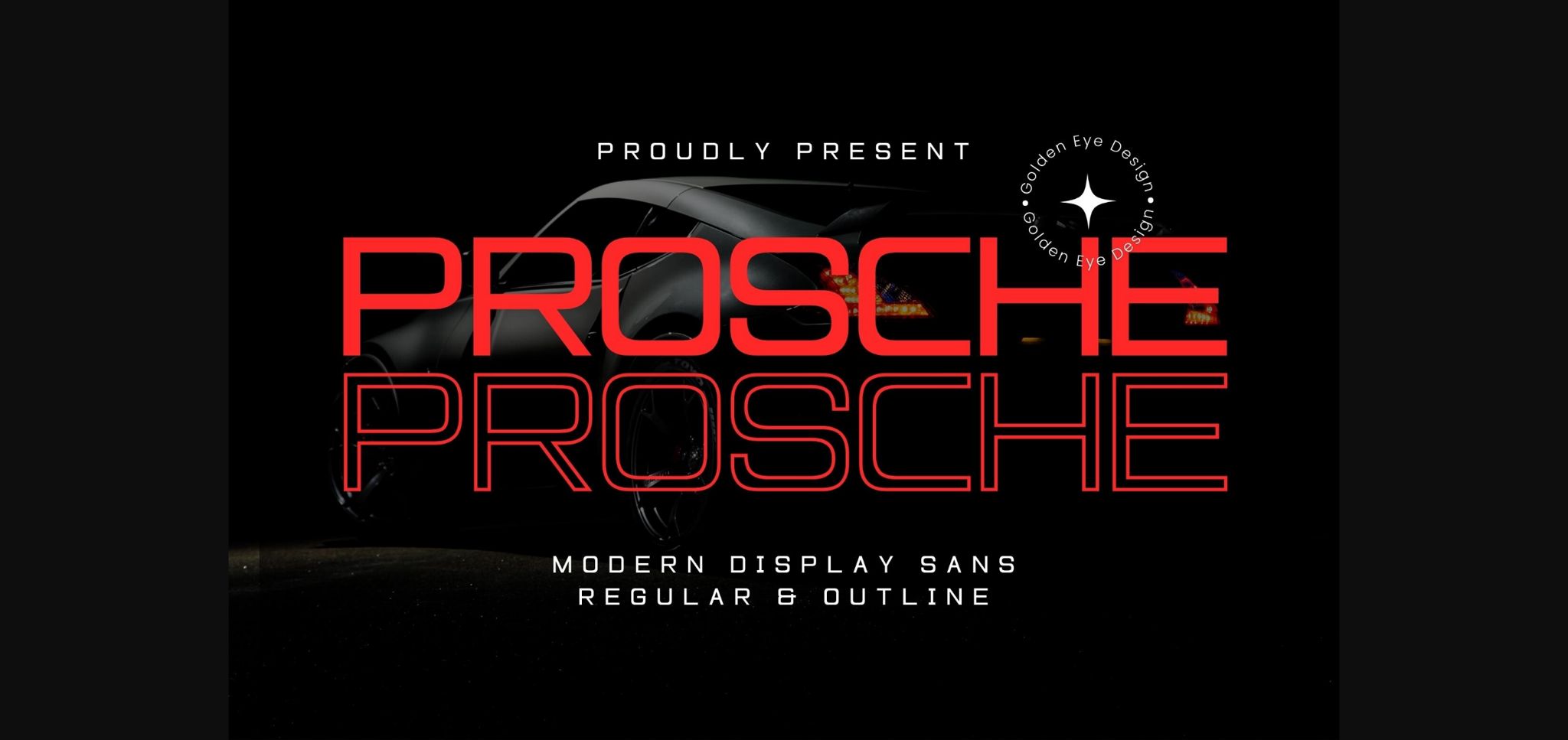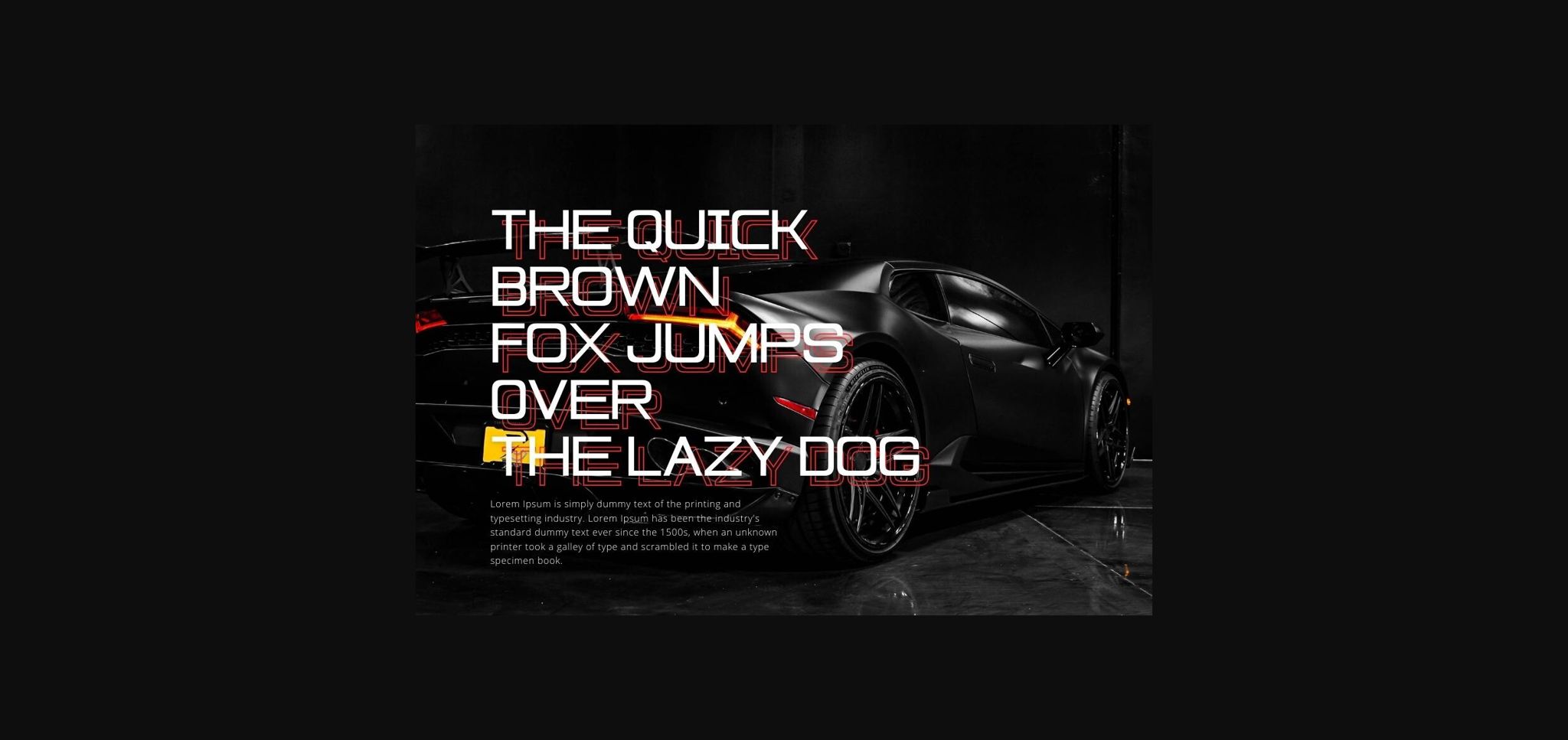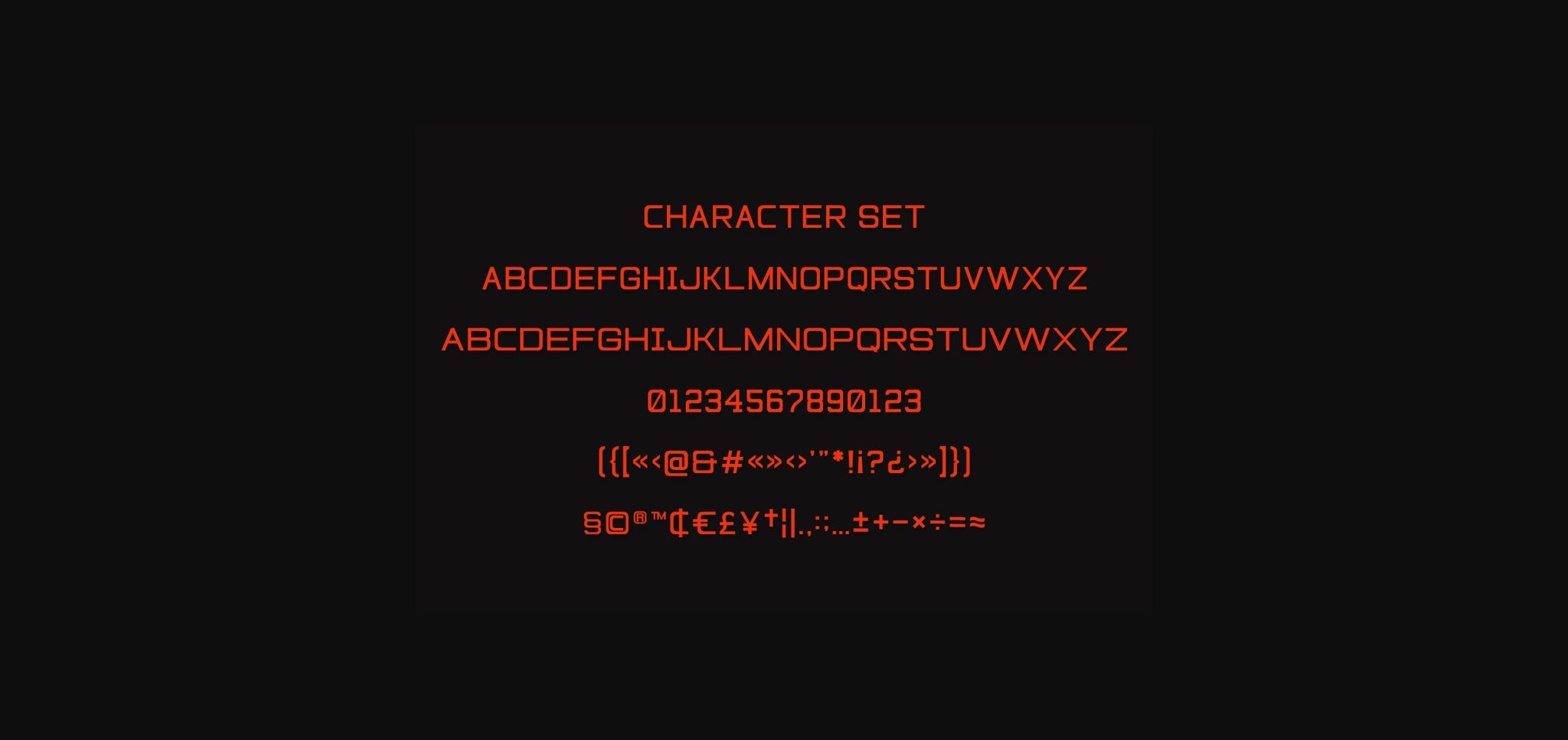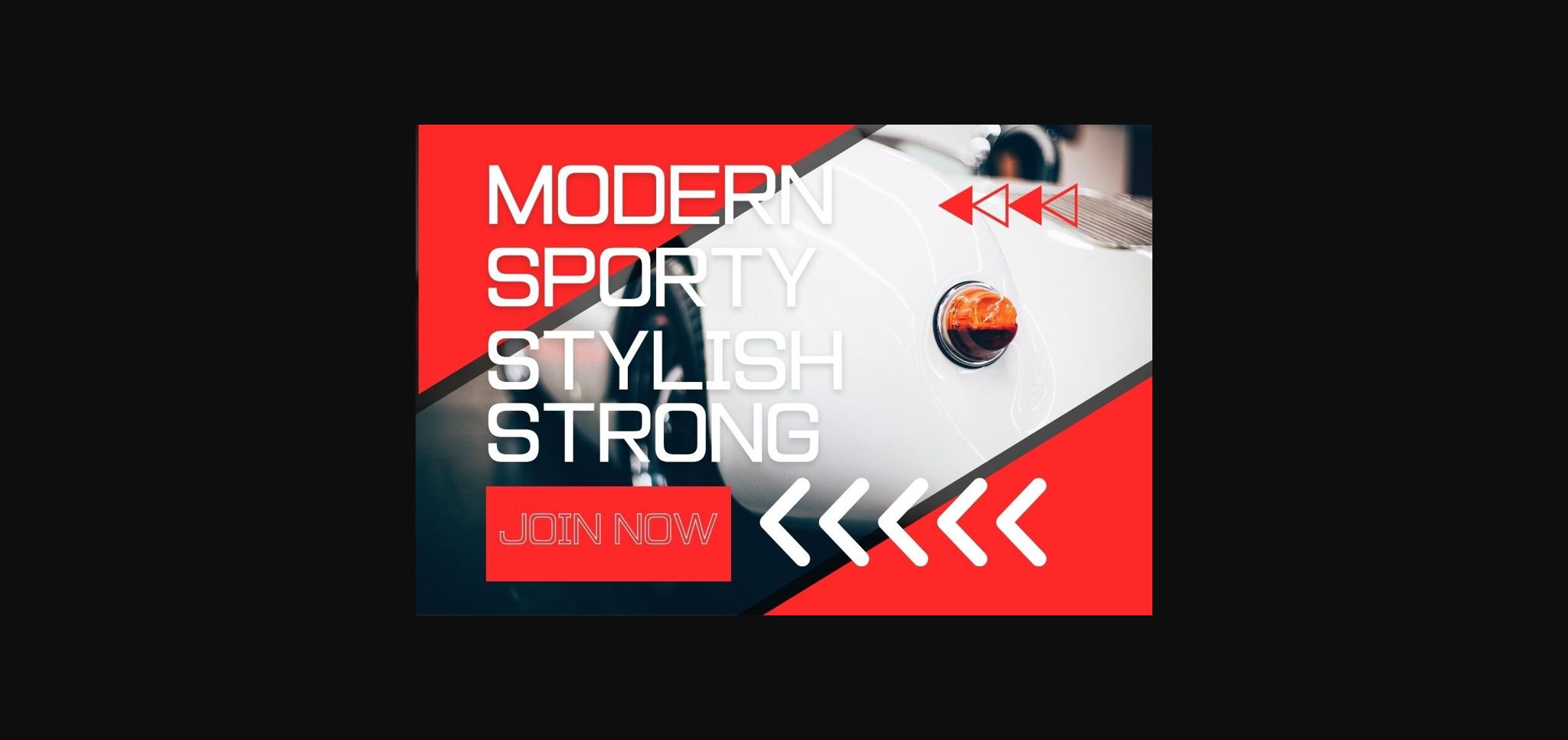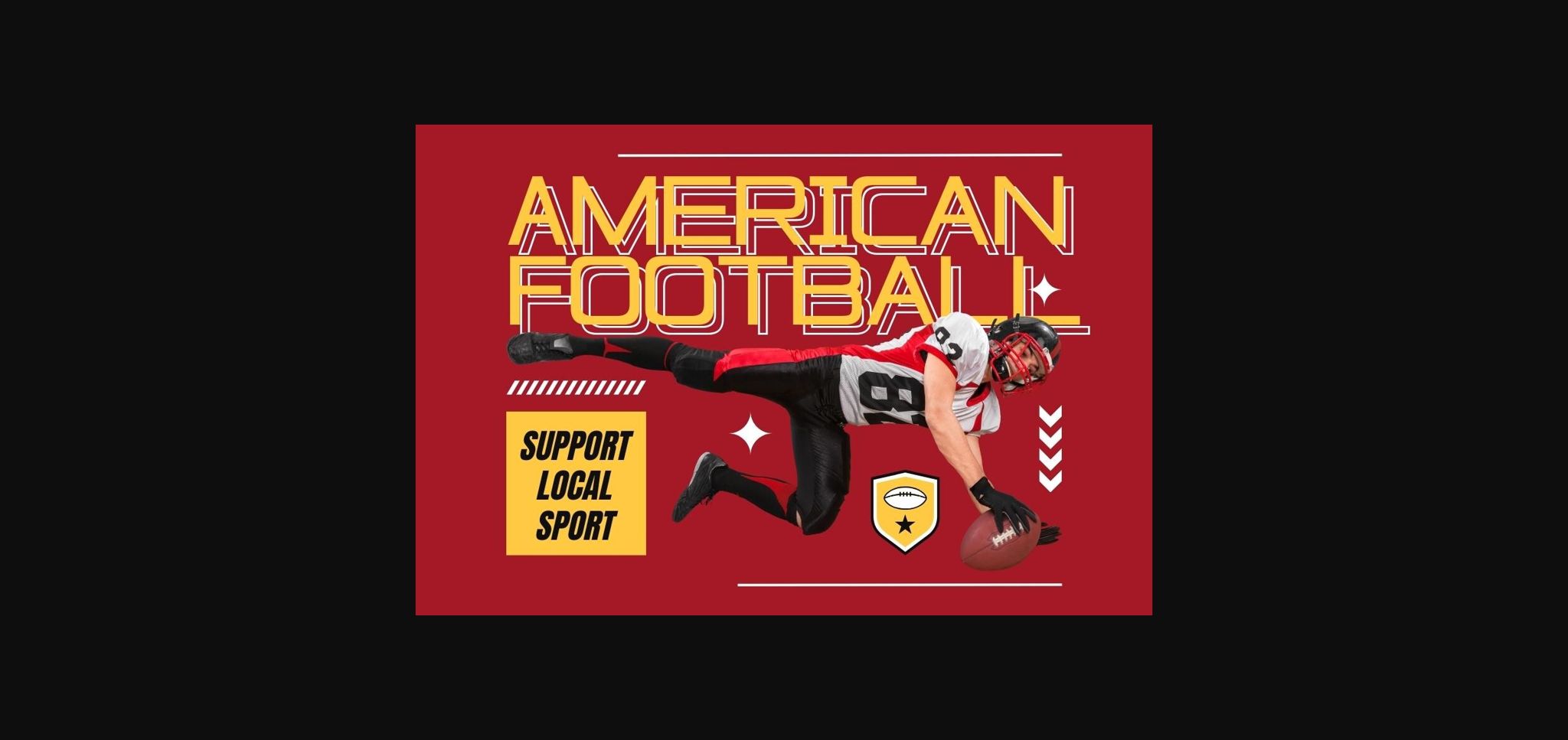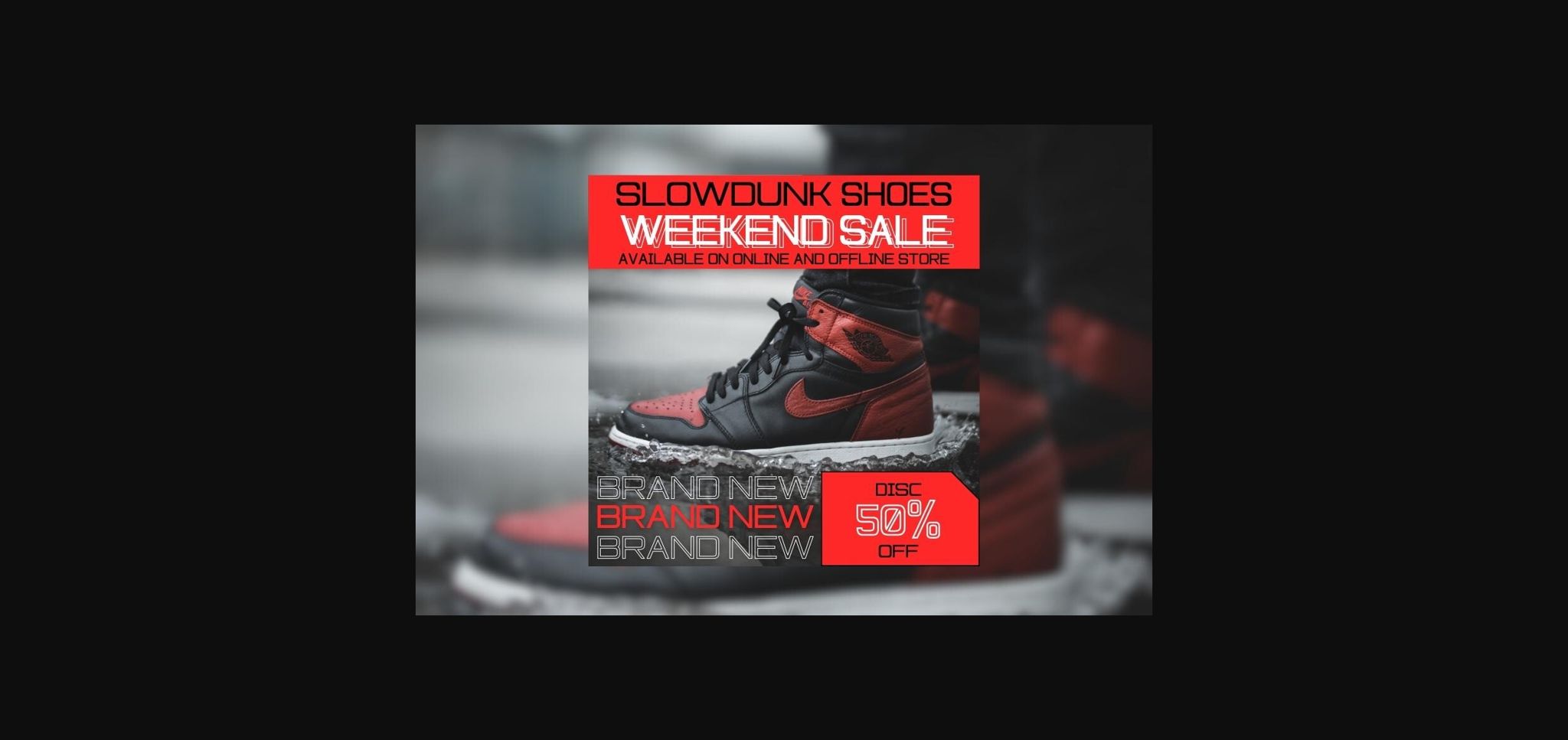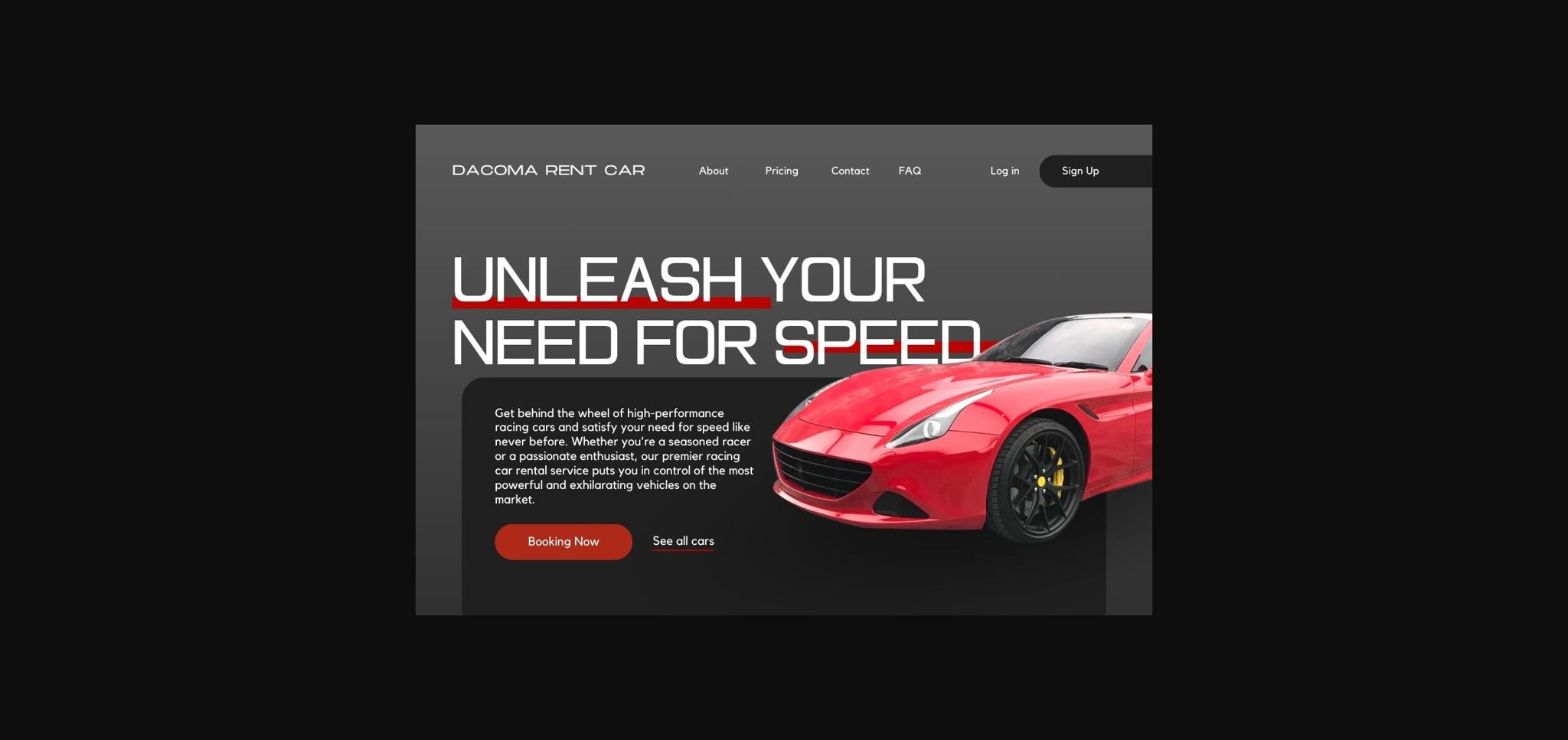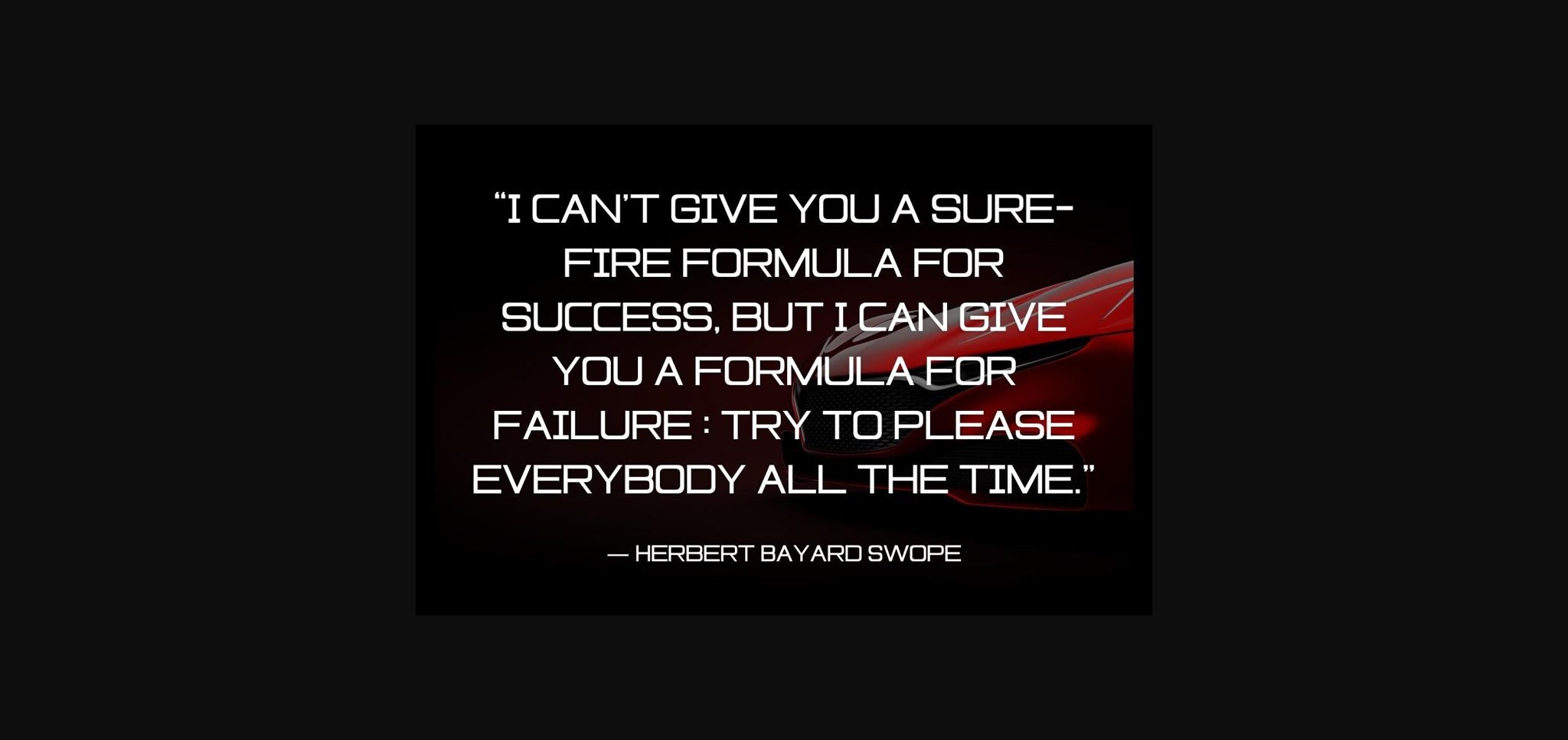
HomeSans Serif FontsProsche Font Sans Serif Fonts Prosche Font FacebookXPinterestWhatsApp 1 of 11 ... Prosche Font Poster 2... Prosche Font Poster 3... Prosche Font Poster 4... Prosche Font Poster 5... Prosche Font Poster 6... Prosche Font Poster 7... Prosche Font Poster 8... Prosche Font Poster 9... Prosche Font Poster 10... Prosche Font Poster 11... About Prosche Font Introducing Prosche – Modern Display Sans Serif. Prosche is a modern and simple font, best used as a display for headings, logos, branding, magazines, product packaging and invitations. Come with 2 versions, Regular & Outline. DOWNLOAD NOW People also explored Kitten Jisman Font Xmas Holly Font Aervos Font Progue Font Ningst Kick Day Font Selopaty Campble Font Monica Valencia Font Carmela Font 418 0 TagsProscheProsche Font Previous articleMakyose FontNext articleMayhem Font LEAVE A REPLY Cancel reply Comment: Please enter your comment! Name:* Please enter your name here Email:* You have entered an incorrect email address! Please enter your email address here Website: Save my name, email, and website in this browser for the next time I comment. Personal Use Free Strings Personal Use Free Read more about this font The Kingdom Personal Use Free Read more about this font Cline Personal Use Free Read more about this font Rina Personal Use Free Read more about this font BLOG 5 Fonts That Will Dominate Design Trends in 2026 5 Fonts for 2026 That Will Dominate Design Trends Typography plays a critical role in visual communication, and as we look ahead to 2026, it’s... To increase your work productivity, choose the most readable fonts. Modern Sans-Serif Fonts That Brands Love in 2025 Top 7 Google Fonts Alternatives for Faster and Privacy-Friendly Web Design (2025)